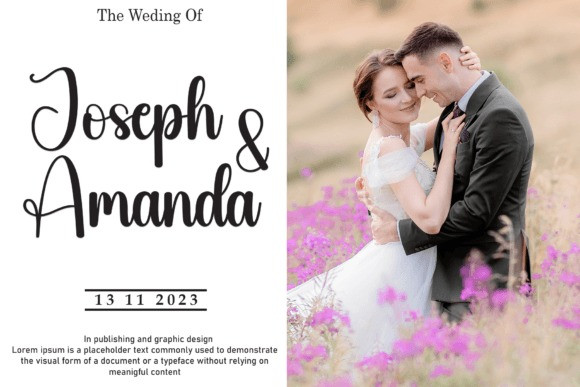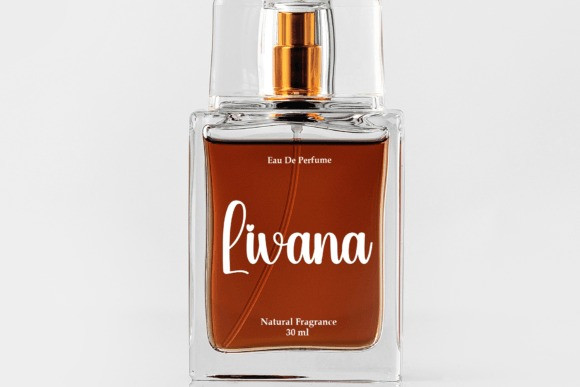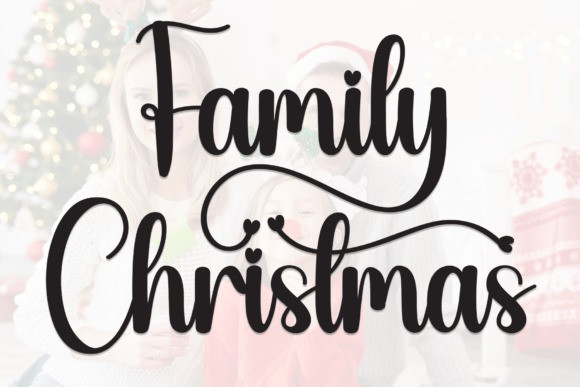
Family Christmas Font
Family Christmas Font is a charming handwritten font that exudes warmth and nostalgia. Its festive and playful style captures the essence of the holiday season, making it perfect for adding a personal touch to your Christmas cards, invitations, and creative projects. This font embodies the spirit of togetherness and joy, making it an ideal choice for spreading holiday cheer through your handwritten messages.